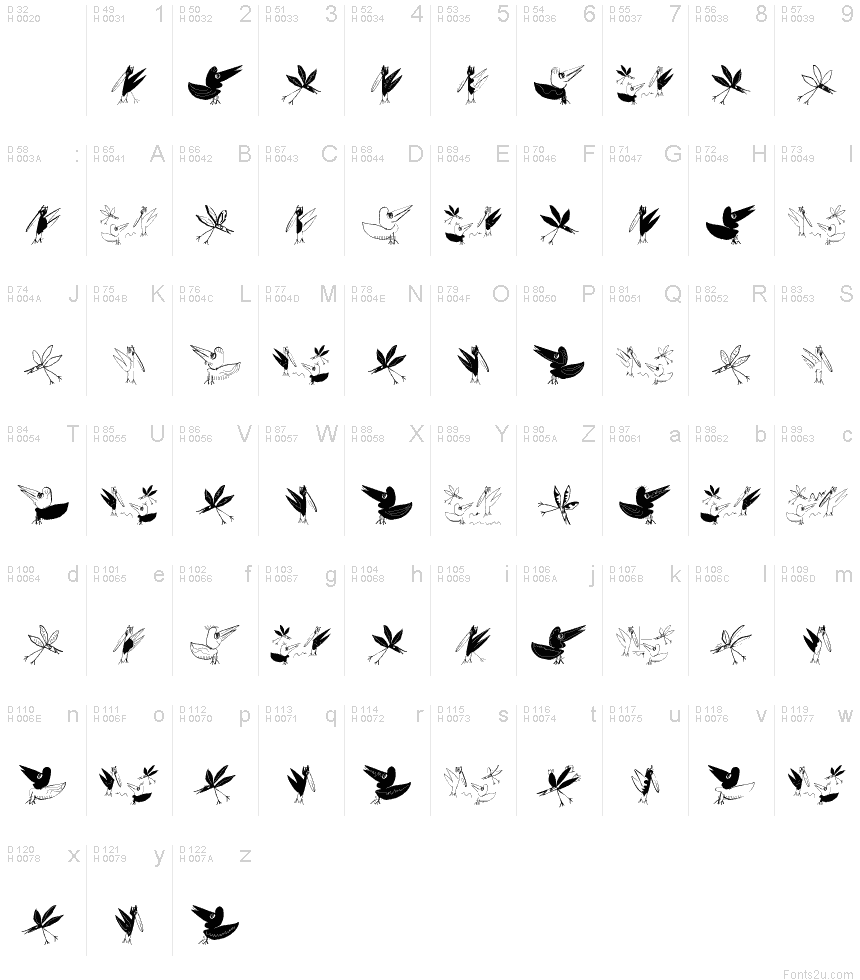
BirdsEtcetera by M. Klein is a free hand-drawn animal dingbat font filled with lively birds and winged insects. The figures range from wiry outline sketches to dense inked silhouettes, but all share scratchy marks and sharply gesturing wings, limbs, and tails. Their uneven contours give the collection the quickness of field notebook doodles.
Nature-minded audiences may appreciate its quirky mix of observation and caricature. It can turn children's publishing, wildlife event posters, and garden-themed packaging into illustrated scenes, while the darker birds also lend themselves to indie music merchandise and offbeat editorial graphics.